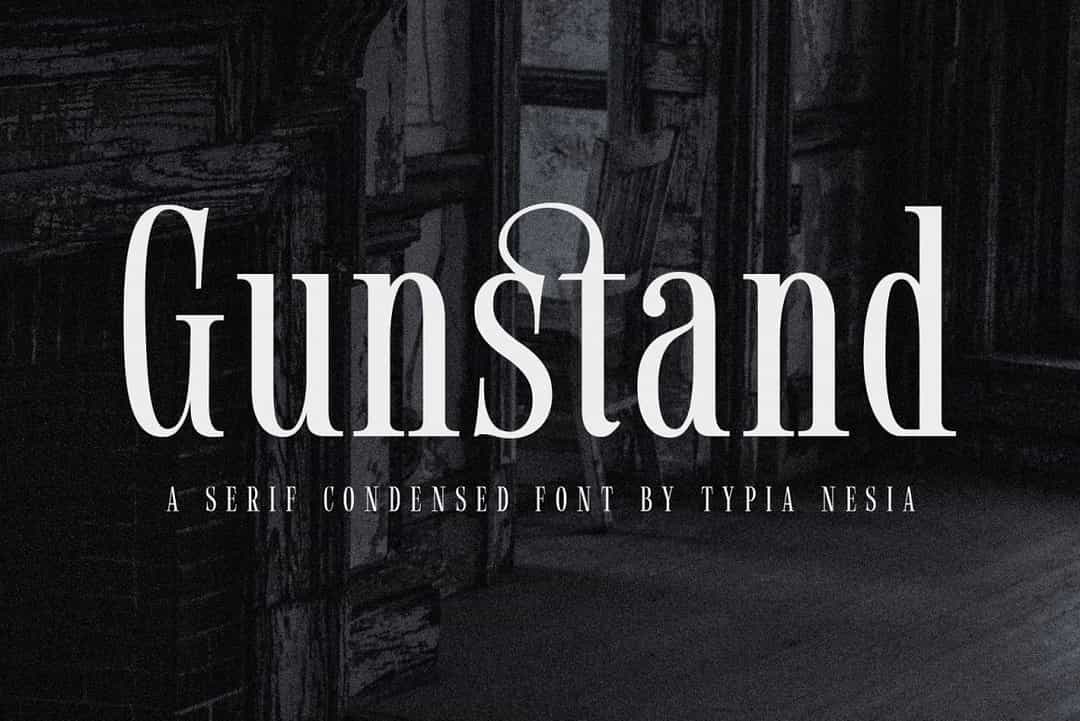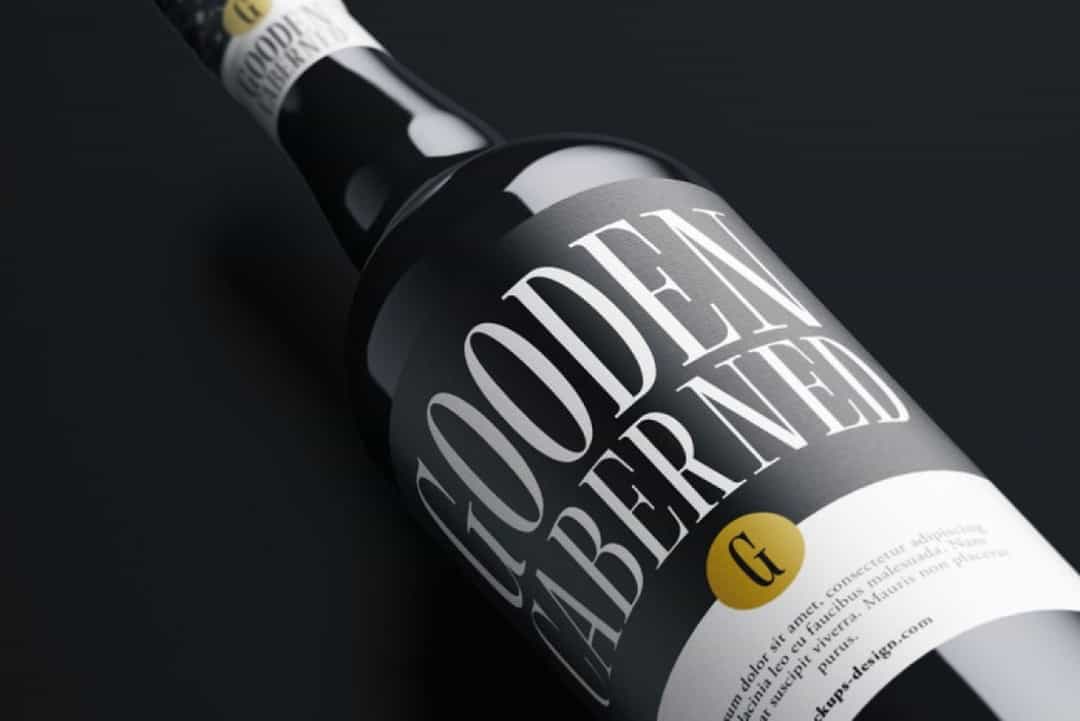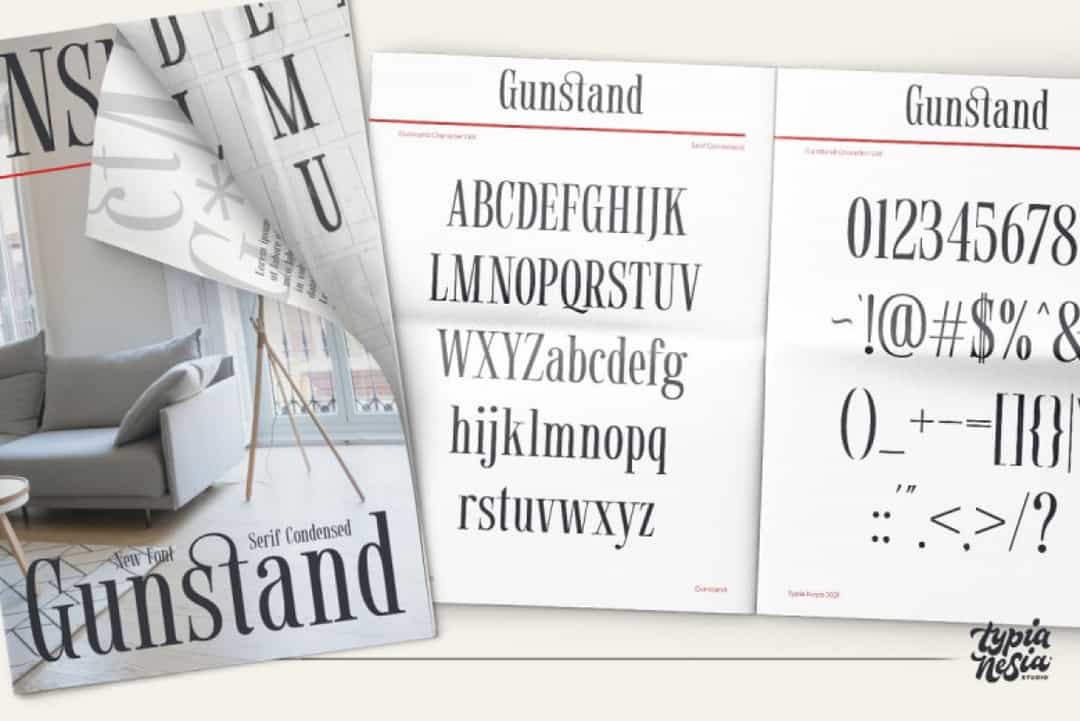
Gunstand is a sophisticated and refined resized serif font suitable for any of your design and print projects including logo and branding, invitations and stationery design, logo redesign, branding for advertising or website or blog, fashion or beauty salon advertising or invitation cards with inspiring art quotes or covers of books, titles of books, home decoration projects and other special events like birthdays/weddings and so on; it can also serve as home decorations.